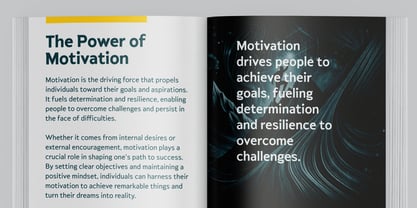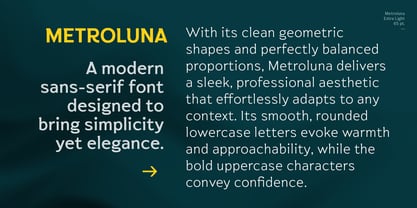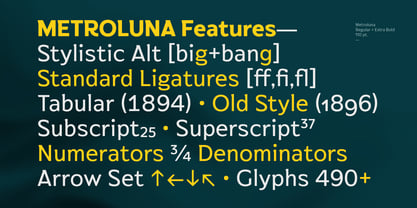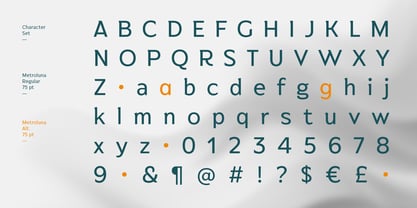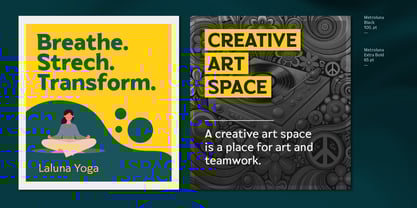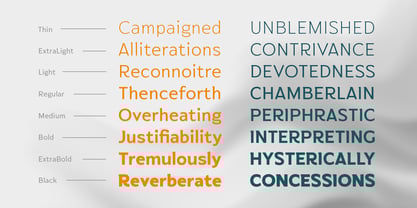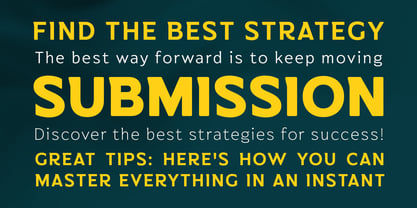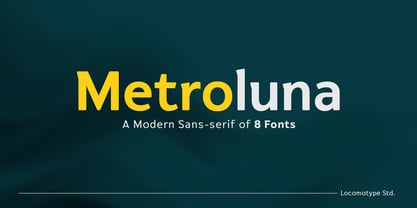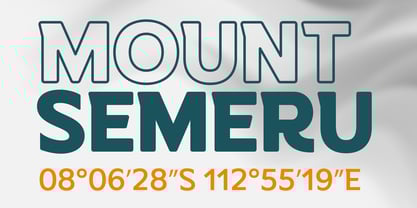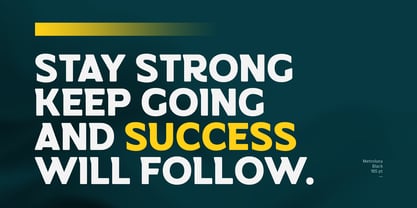
Metroluna
by Locomotype
The Metroluna Font Family was designed by Arwan Sutanto and published by Locomotype. Metroluna contains 8 styles and family package options.
Metroluna is a modern sans-serif font designed to bring simplicity and sophistication to your projects. With its clean geometric shapes and perfectly balanced proportions, Metroluna delivers a sleek, professional aesthetic that effortlessly adapts to any context. Its smooth, rounded lowercase letters evoke warmth and approachability, while the bold uppercase characters convey confidence and structure.
Comes in 8 weights from thin to black, Metroluna is the perfect choice for creators seeking a font that marries functionality with elegance. Whether for digital interfaces, branding, or editorial designs, Metroluna ensures exceptional readability and style.